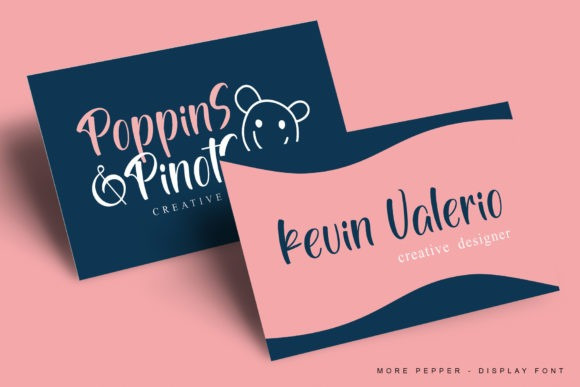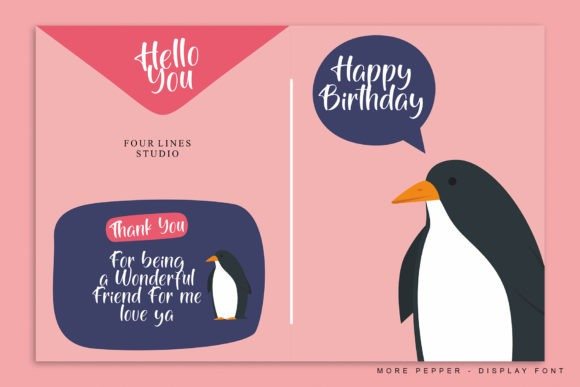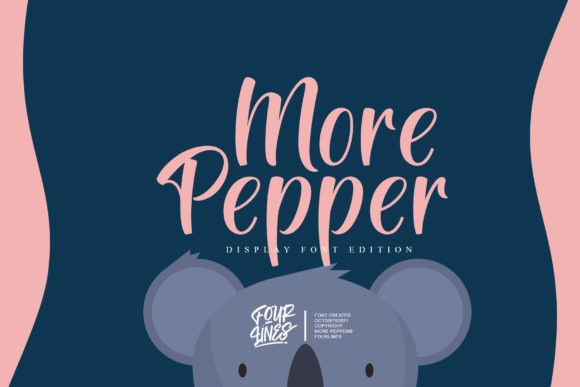
More Pepper Font
More Pepper Font is a lovely and delicate script font that exudes elegance and class. This font was particularly crafted for those who need a beautiful and refreshing look to their designs.